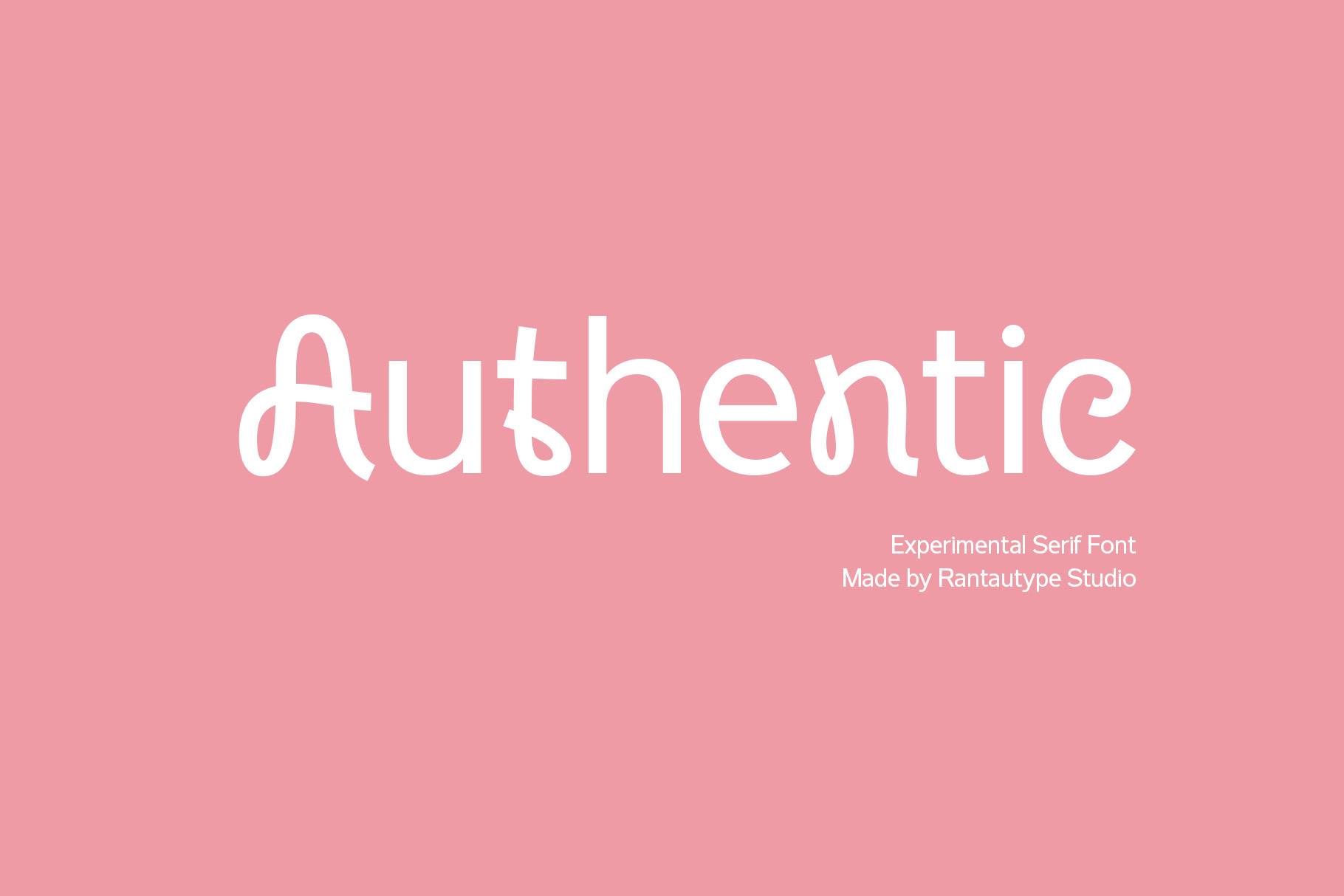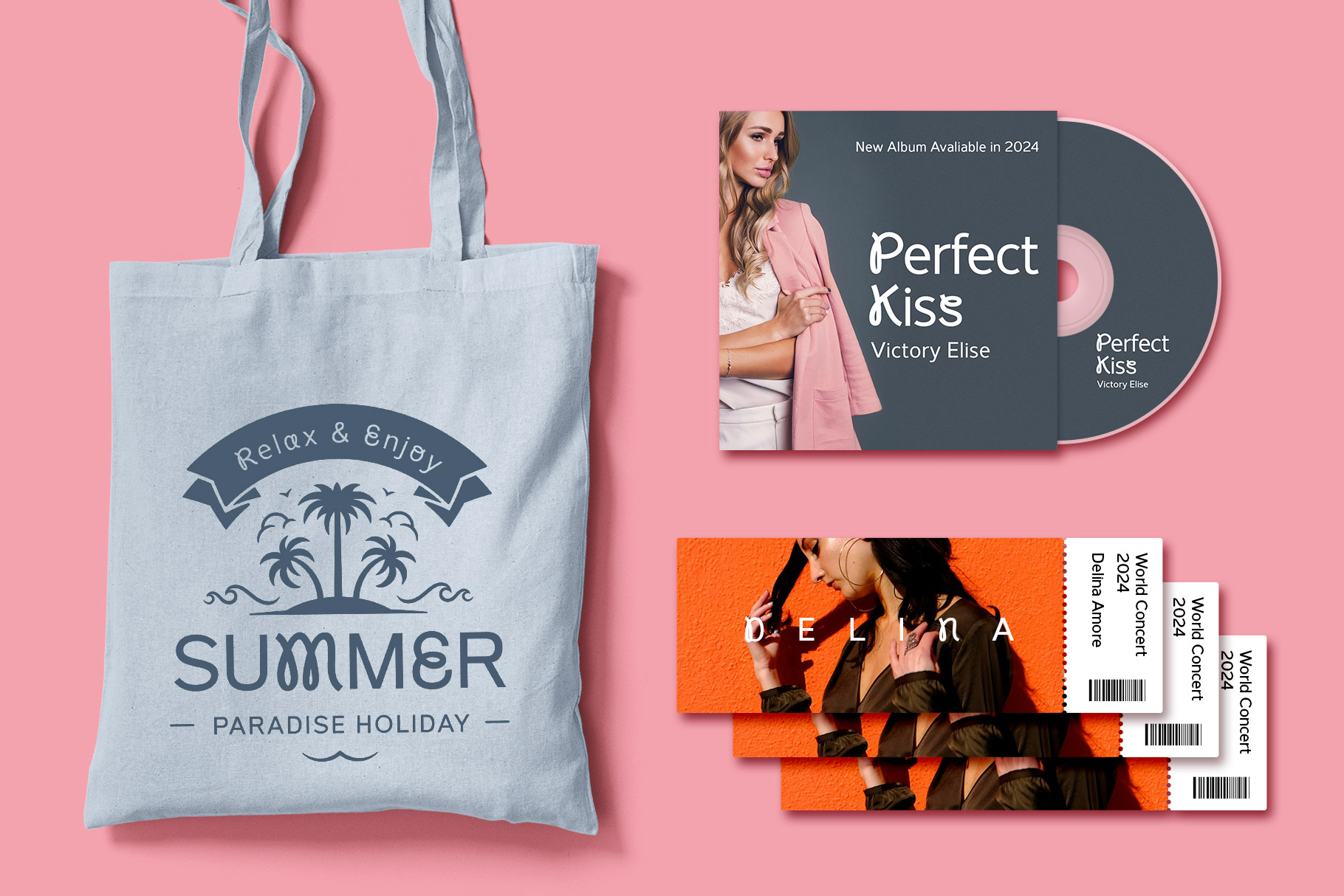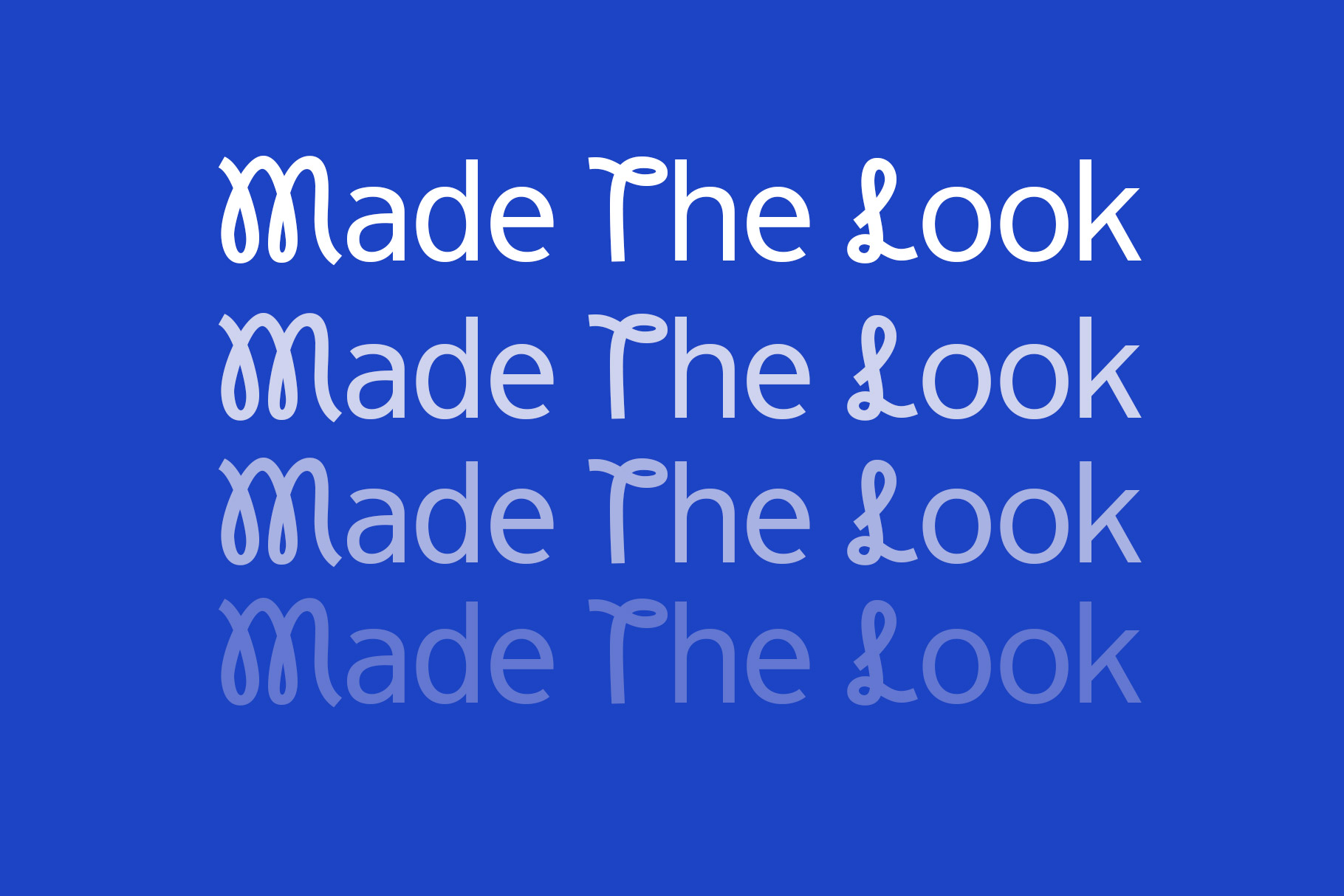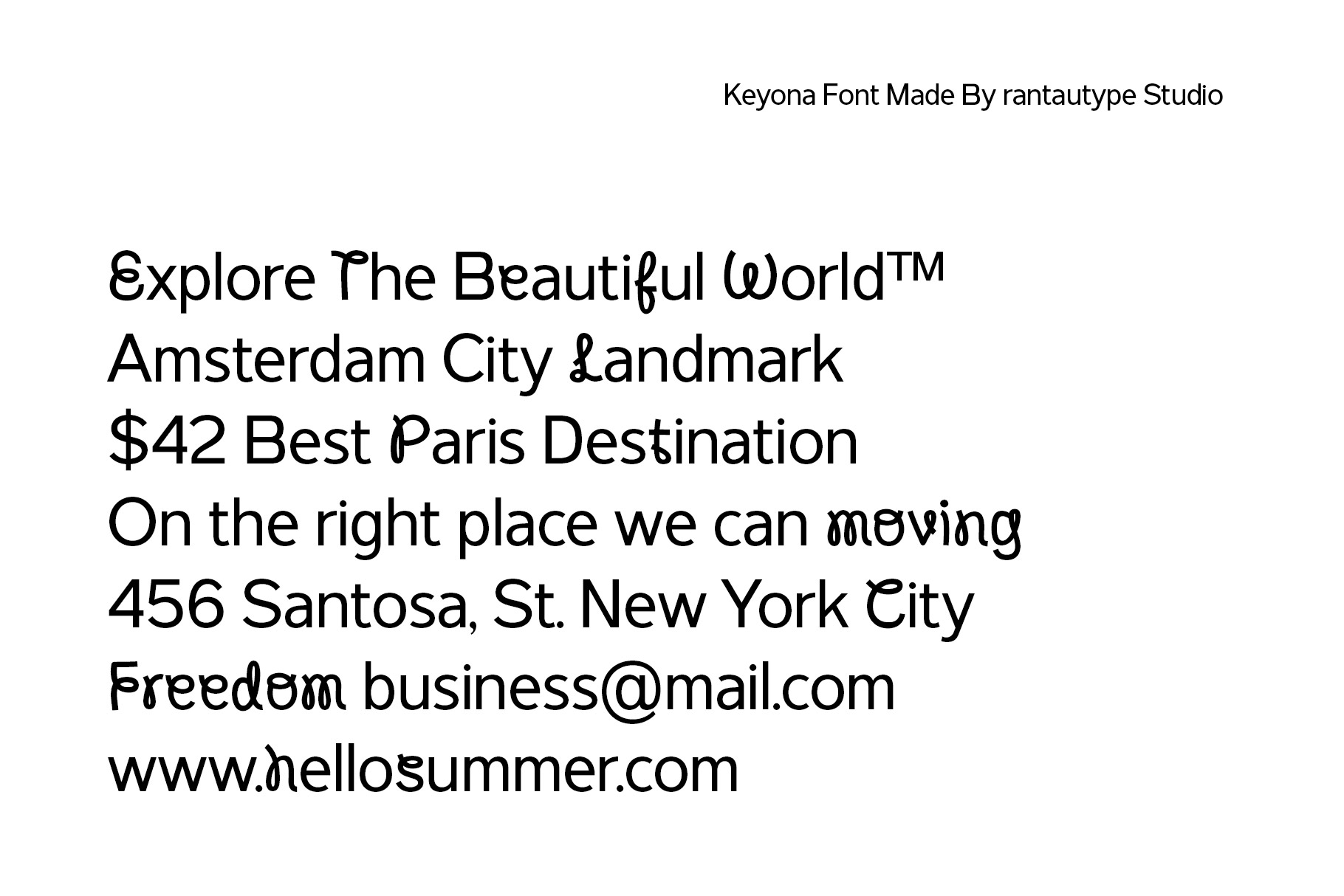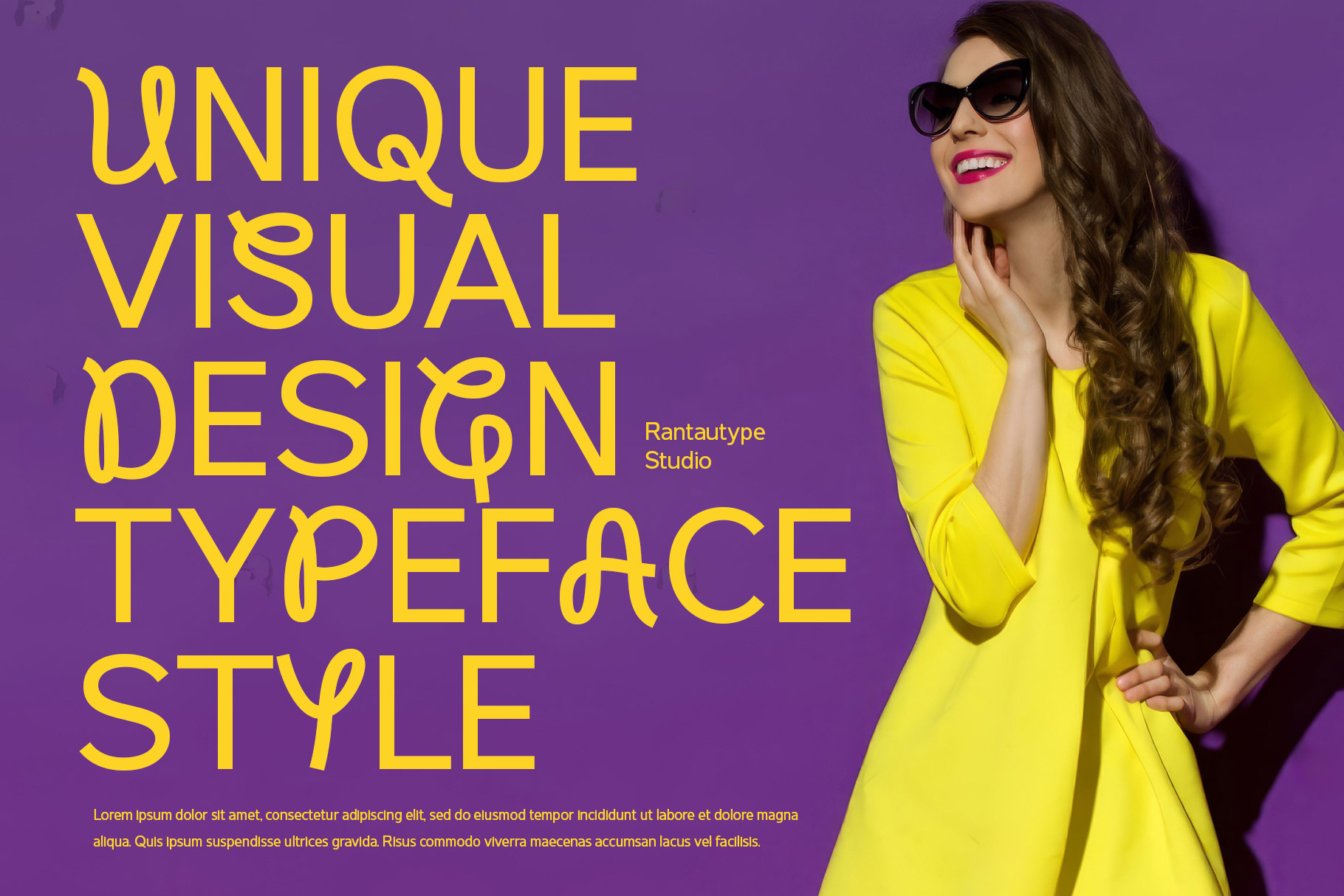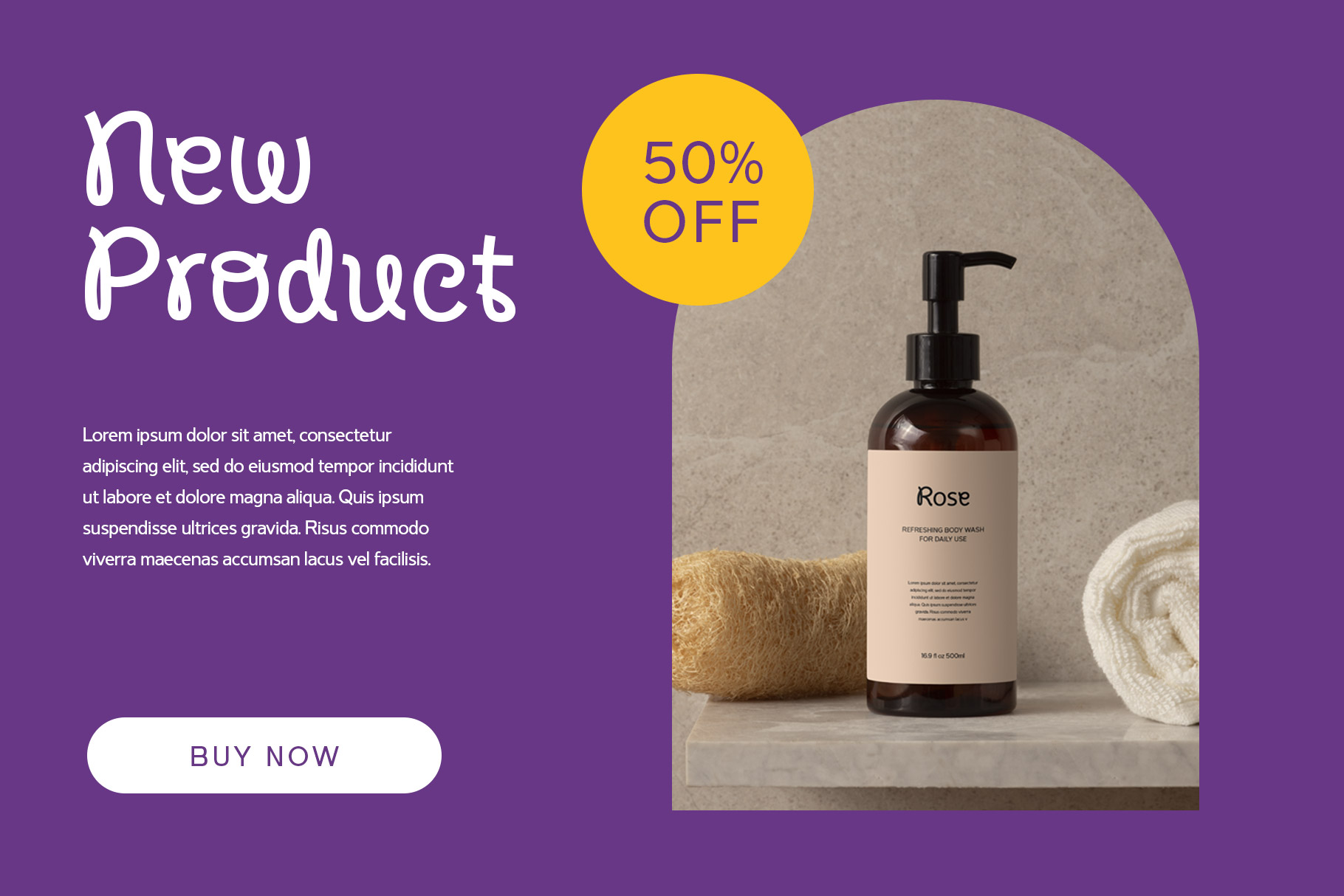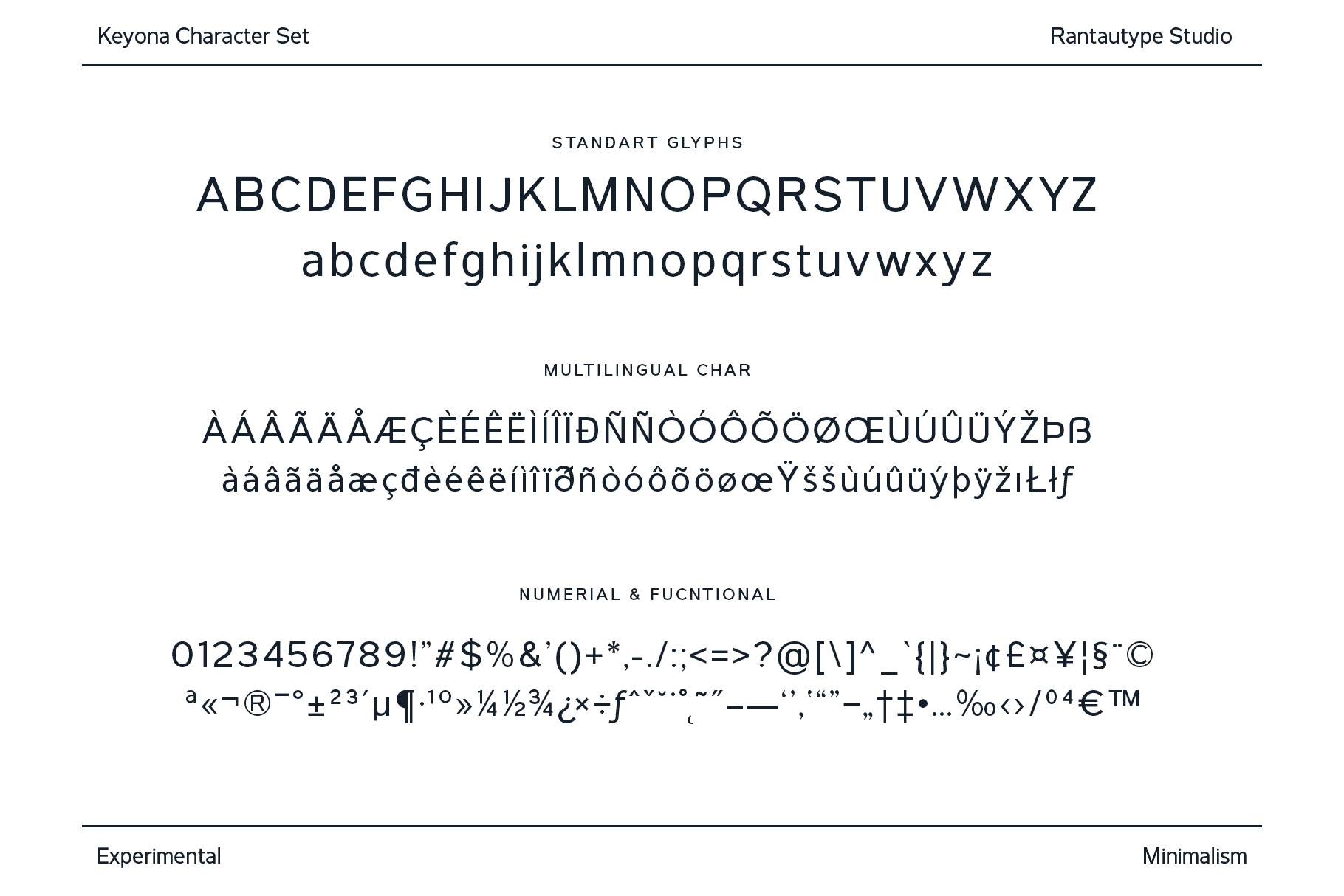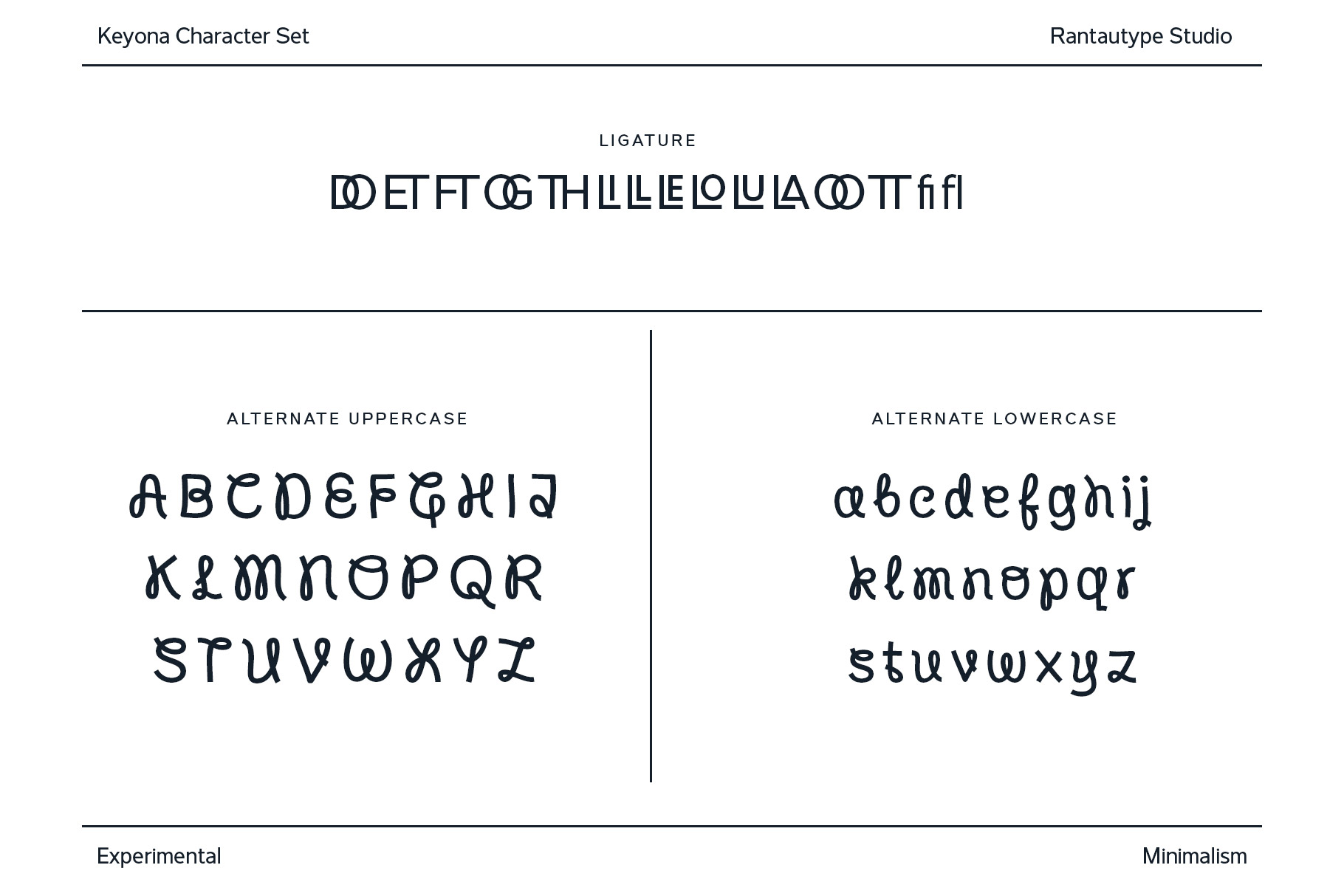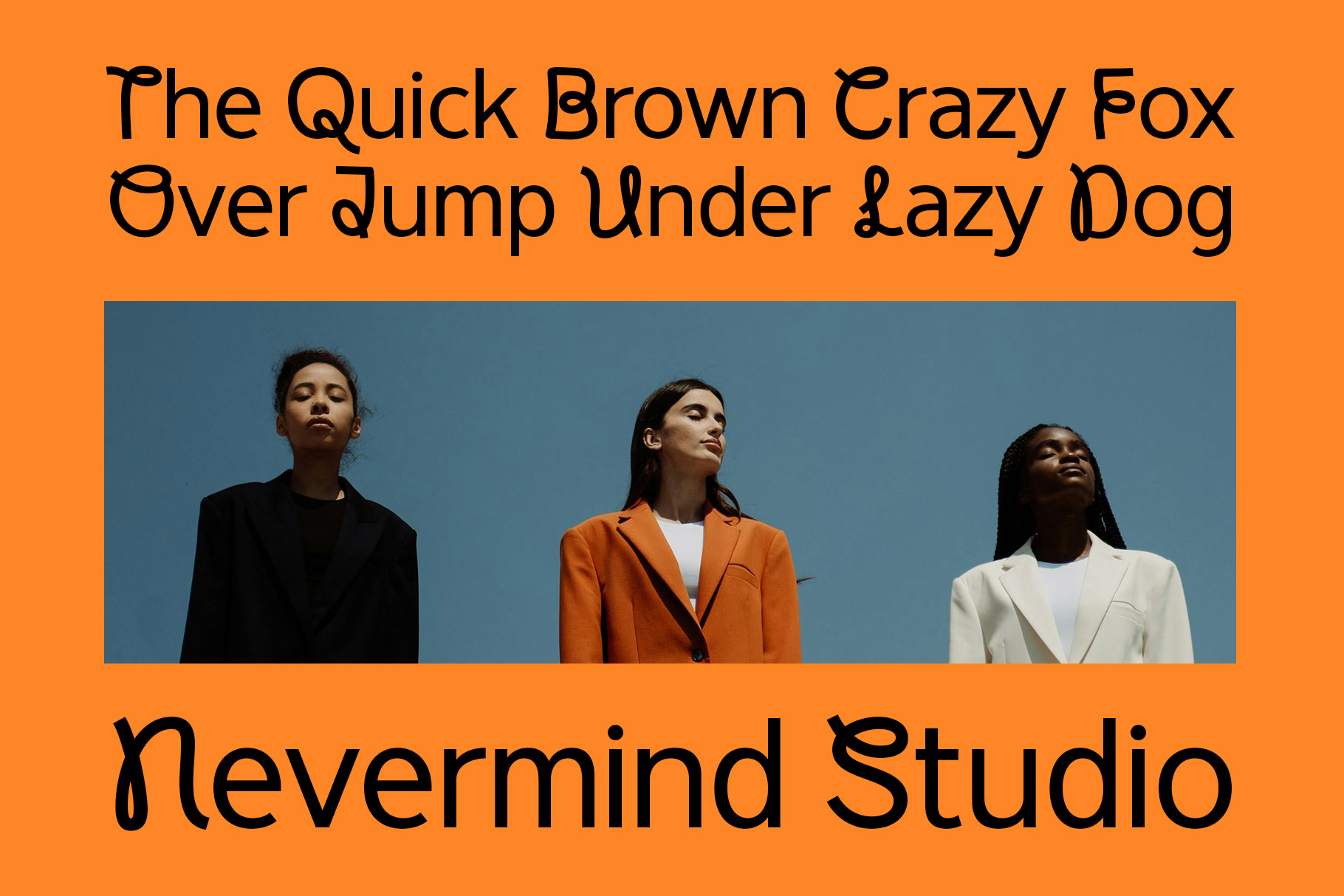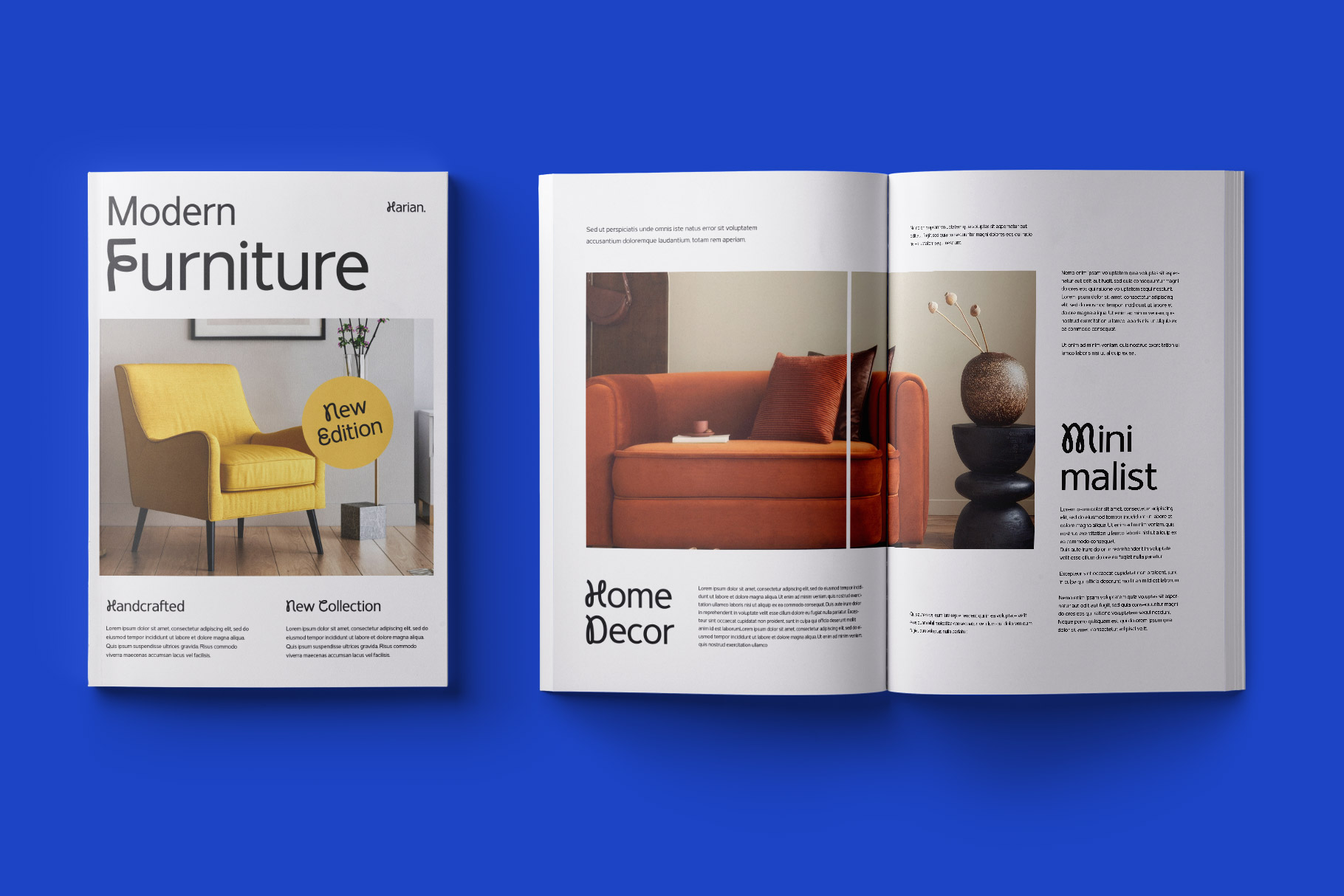
Keyona Experimental Sans Font
Keyona is a experimental unique font with modern visual design. Kolidan come with unique alternate shape in Uppercase and Lowercase make your design project more memoriable and sophisticated. We keep this font look modern, elegant, unique, memoriable and eye catch.
Keyona is a perfectly choice for any creative endeavor, chic, lifestyle design such as logos, advertisements, watermark on photography, stationery, branding project, display and magazine, invitation, corporate brand, product design, label, business project and many other project with elegant touch.